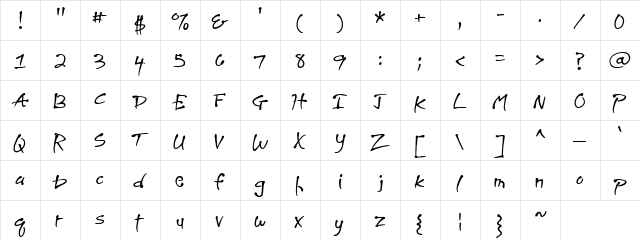
CK Fortune Regular
Design Context for CK Fortune Typeface
CK Fortune takes a measured approach to typography — its balanced proportions and neutral character make it a reliable workhorse for both digital and print work.